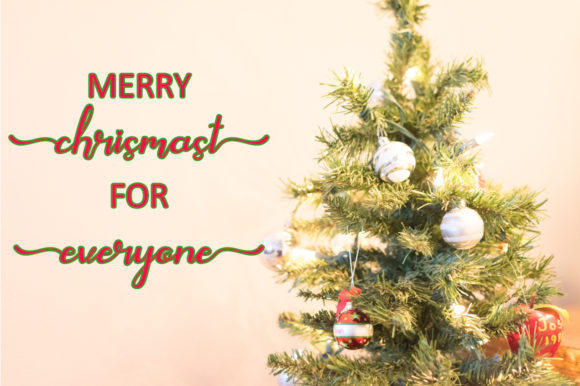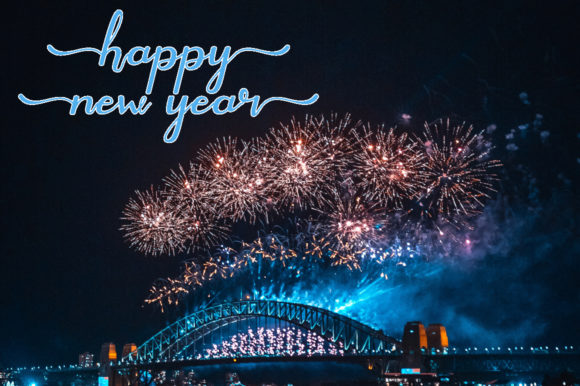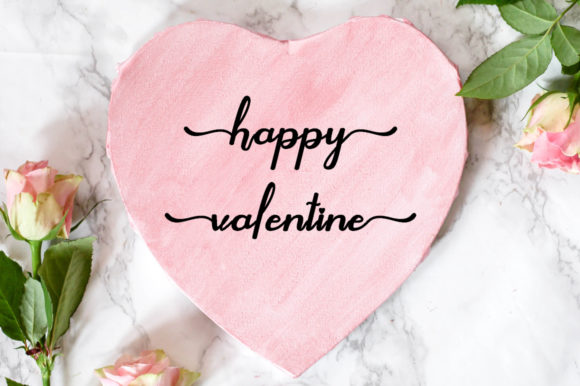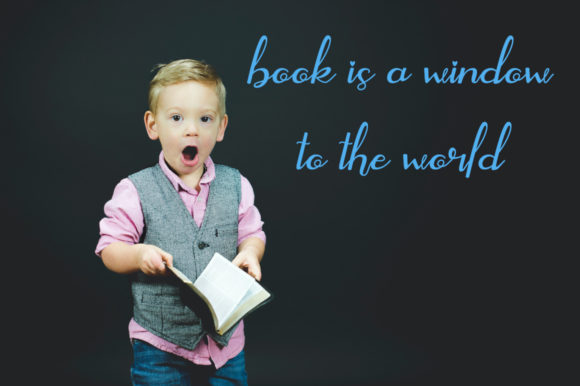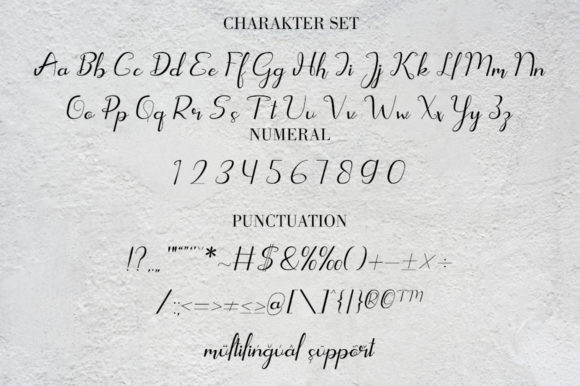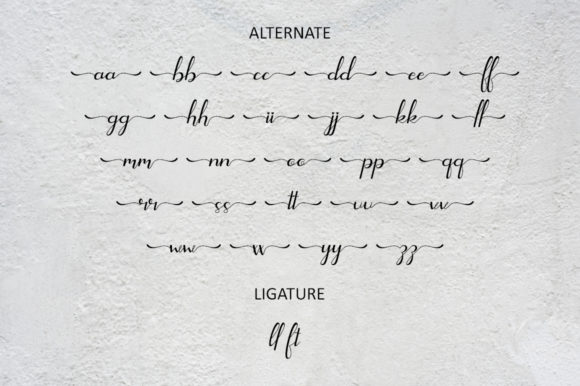
Introduction to Mahoney Font
Have you ever been brainstorming a creative project and suddenly, the perfect font pops into your head? For many designers, this moment of inspiration can make all the difference between a good design and a great one. For me, it was when I stumbled upon the charming Mahoney Font, and I knew I had to share it with the world.
With its romantic and sweet calligraphy style, the Mahoney Font is a design resource that’s hard to resist. Its casual yet elegant touch makes it perfect for a wide range of applications, from wedding invitations and logos to t-shirts and signage. And the best part? It’s available for a free download, complete with a transparent background for seamless integration into your design.
Key Features of Mahoney Font
- Unique, handwritten design ideal for creative projects and personal use.
- Features a transparent background, allowing for easy layering and customization.
- Designed with high-quality graphics, ensuring crisp and clear display at resolutions up to 300 DPI.
- Includes a comprehensive character set, including uppercase and lowercase letters, numbers, and punctuation.
Honest Review: Mahoney Font
As a designer, I’m always on the lookout for high-quality design resources to elevate my creative projects. The Mahoney Font is one such resource that caught my attention, and I’m excited to share my honest review.
- ✨ The Mahoney Font has a beautiful, elegant design that’s perfect for creating a sophisticated and refined look.
- ✨ The font supports a transparent background, allowing for seamless integration with other design elements.
Overall, I’m impressed with the Mahoney Font’s design quality and versatility. While it may have some limitations, it’s an excellent choice for designers working on creative projects that require a high-quality, elegant font. Whether you’re a professional designer or a hobbyist, the Mahoney Font is definitely worth considering as a design resource.
To get the most out of the Mahoney Font, use it in conjunction with high-quality images and design elements. Experiment with different font sizes, colors, and styles to create a visually appealing design. The font’s transparent background makes it ideal for creating overlay text effects.
The Mahoney Font is ideal for a variety of creative projects, including:
- Web design projects
- Print design projects